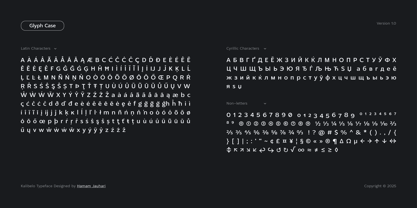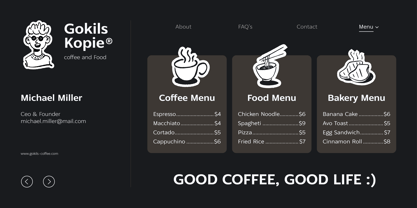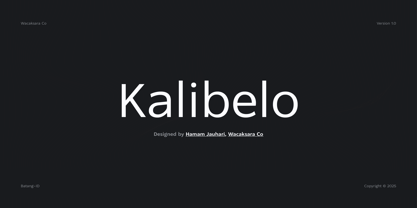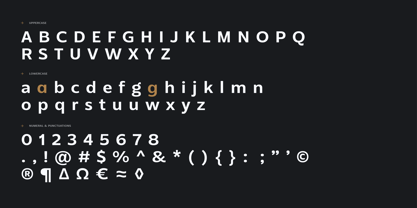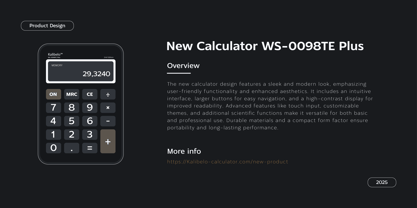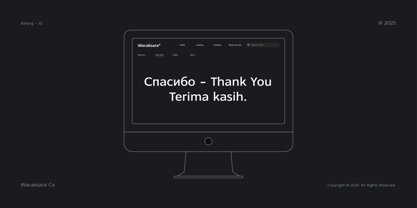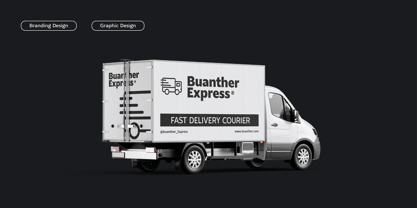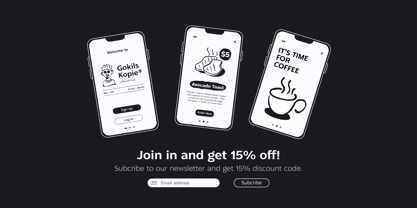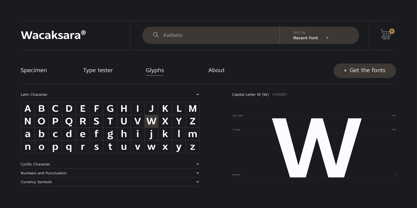
Kalibelo
The Kalibelo Font Family was designed by Hamam Jauhari and published by Wacaksara co. Kalibelo contains 9 styles and family package options. More about this family
Kalibelo is a modern, adaptive sans-serif typeface family that includes nine styles, from Thin to Black. With its clean lines and well-balanced proportions, it is perfectly suited for various design applications, such as web, branding, advertising, print, and editorial projects. This minimalist and contemporary font caters to all creative needs, making it an excellent choice for both digital and print media. It also supports multiple languages and ensures outstanding readability.